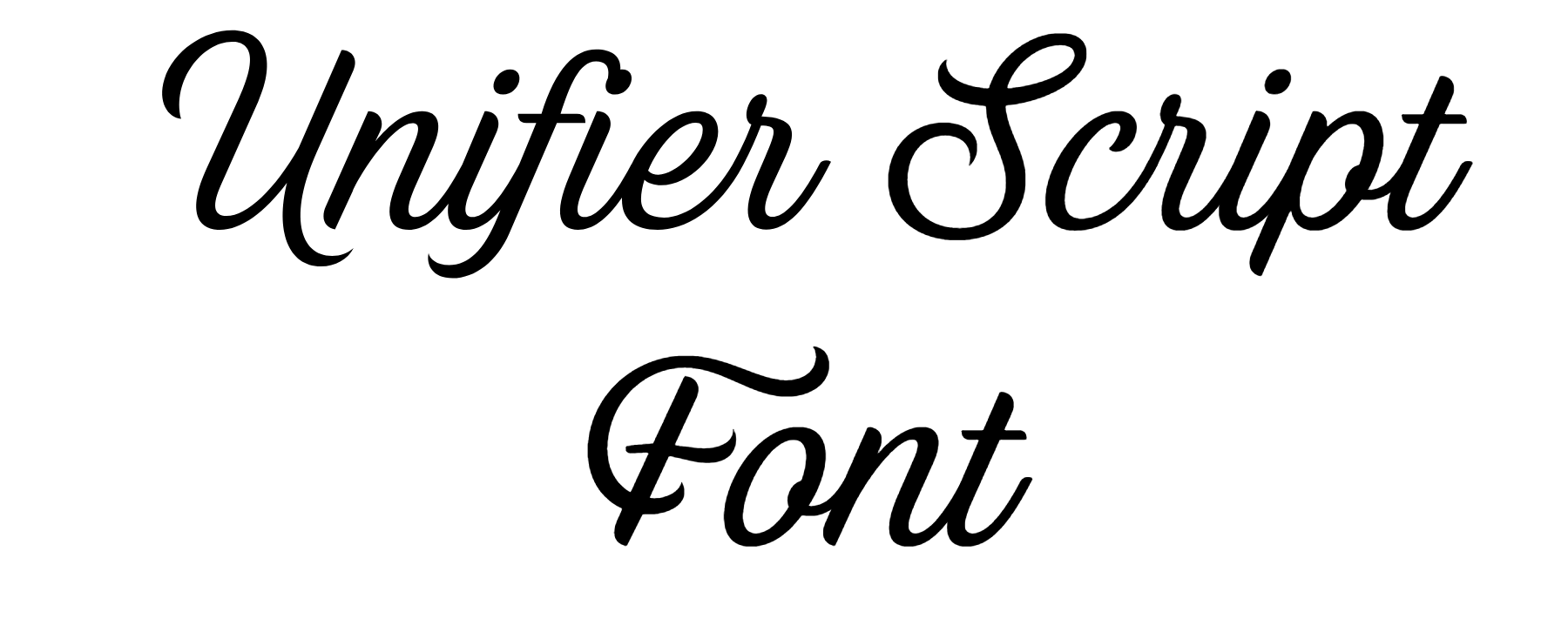
Unifier Script
Unifier Script is a handwritten font created by Mans Greback and released through Mans Greback AB (2025). It has a casual, written-with-a-pen look that makes designs feel personal. It's a free download, and you can try it with your own text in the preview above first.
- Glyphs: 1,118
- OpenType features: Ligatures (including optional ones), swashes, 4 stylistic sets, small caps, old-style numbers and fractions
What You Can Type With Unifier Script
Unifier Script covers the full alphabet in upper and lowercase, plus all ten numbers, so you can set names, dates and prices without switching fonts. Common punctuation such as &, !, ? and @ is included as well. It also has the accented letters you need for Spanish, French, German, Portuguese and Italian. Of its 1,118 glyphs, about 394 are not on your keyboard at all. That is where the alternates explained below live.
Where Unifier Script Works Best
Designers usually reach for fonts like Unifier Script when they're making greeting cards, journal pages and friendly social posts. Set it a bit larger than you would a normal text font. Handwriting styles lose their charm once they get too small to read comfortably.
Who designed Unifier Script font?
Does Unifier Script support accented letters?
Yes. Unifier Script includes the accented letters needed for Spanish, French, German, Portuguese and Italian, so it works for more than just English.